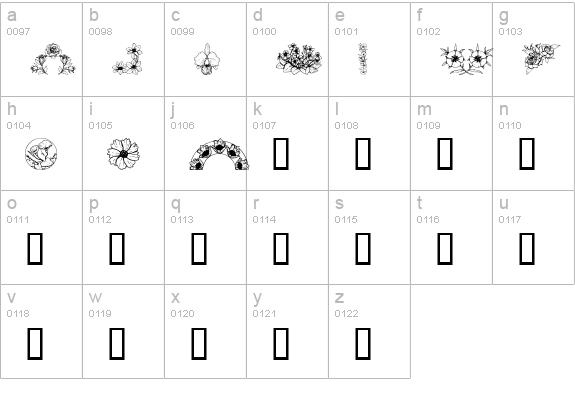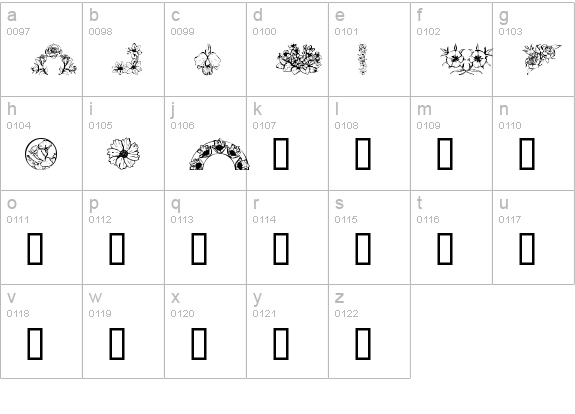
Dover Floral and Design II Font Details
Dover Floral and Design II font is a beautifully crafted typeface that exudes elegance and sophistication. Its delicate floral motifs and intricate design elements make it perfect for adding a touch of charm to your projects. This unique font is perfect for invitations, greeting cards, branding, and more. And the best part? Dover Floral and Design II font is available for free download at FontsMarket.com. Now you can easily access this stunning font and enhance your designs with its graceful and artistic flair. Add a touch of beauty to your creative projects with Dover Floral and Design II font today!